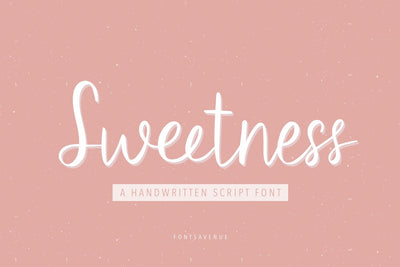
Sweetness | Handwritten Script Font
Sweetness is a clean handwritten script font, perfect for invitations, logo design, branding, quotes and much more!
- Uppercase and lowercase letters
- Accented characters